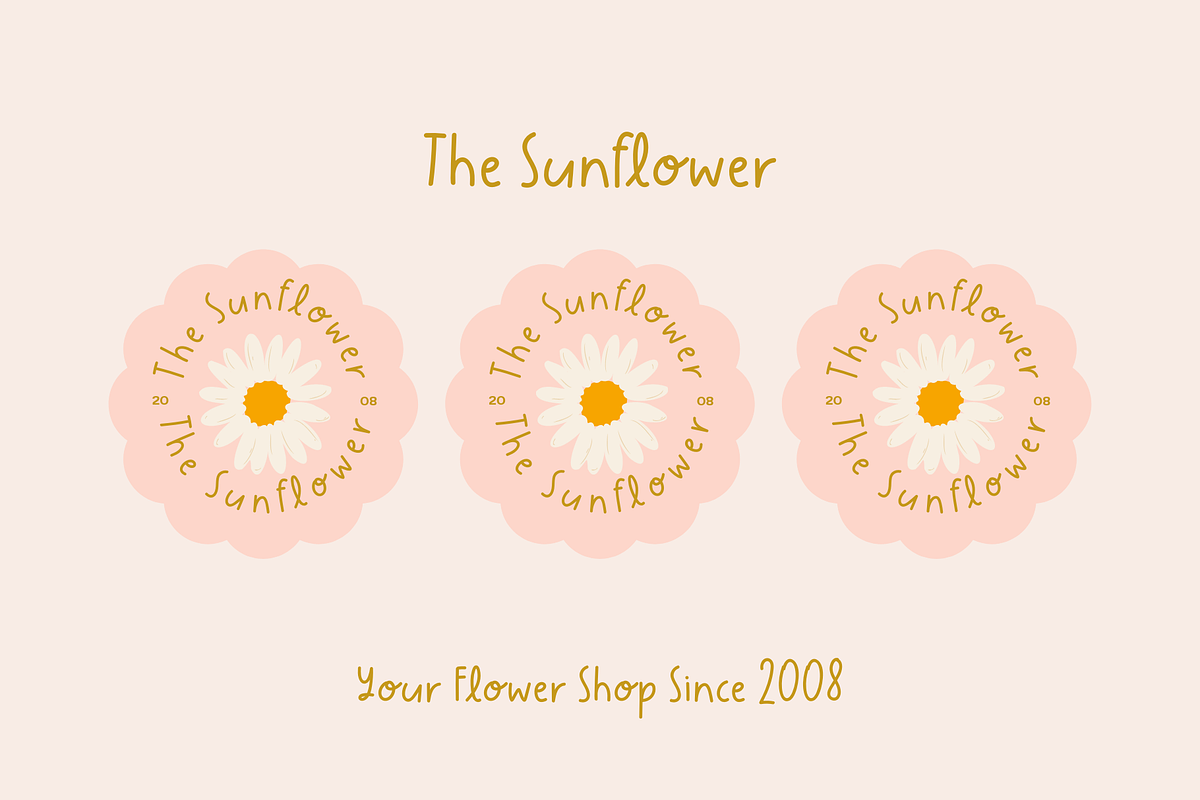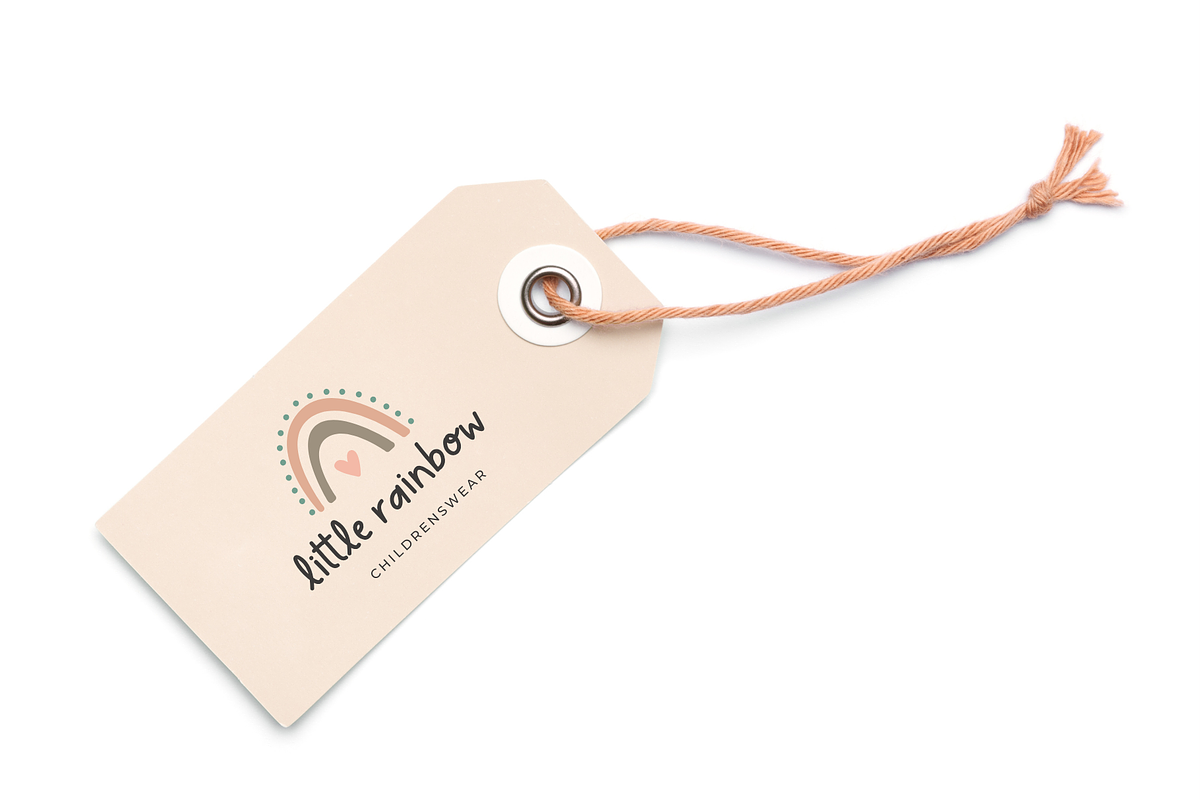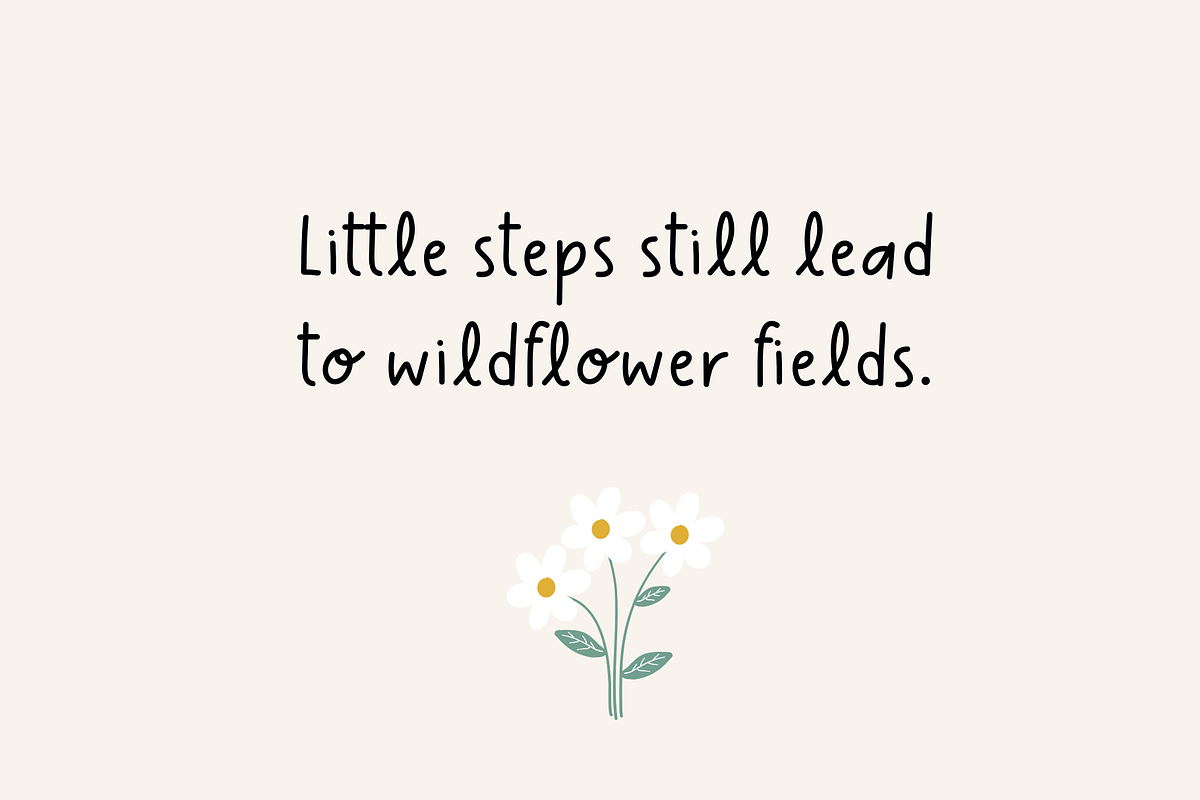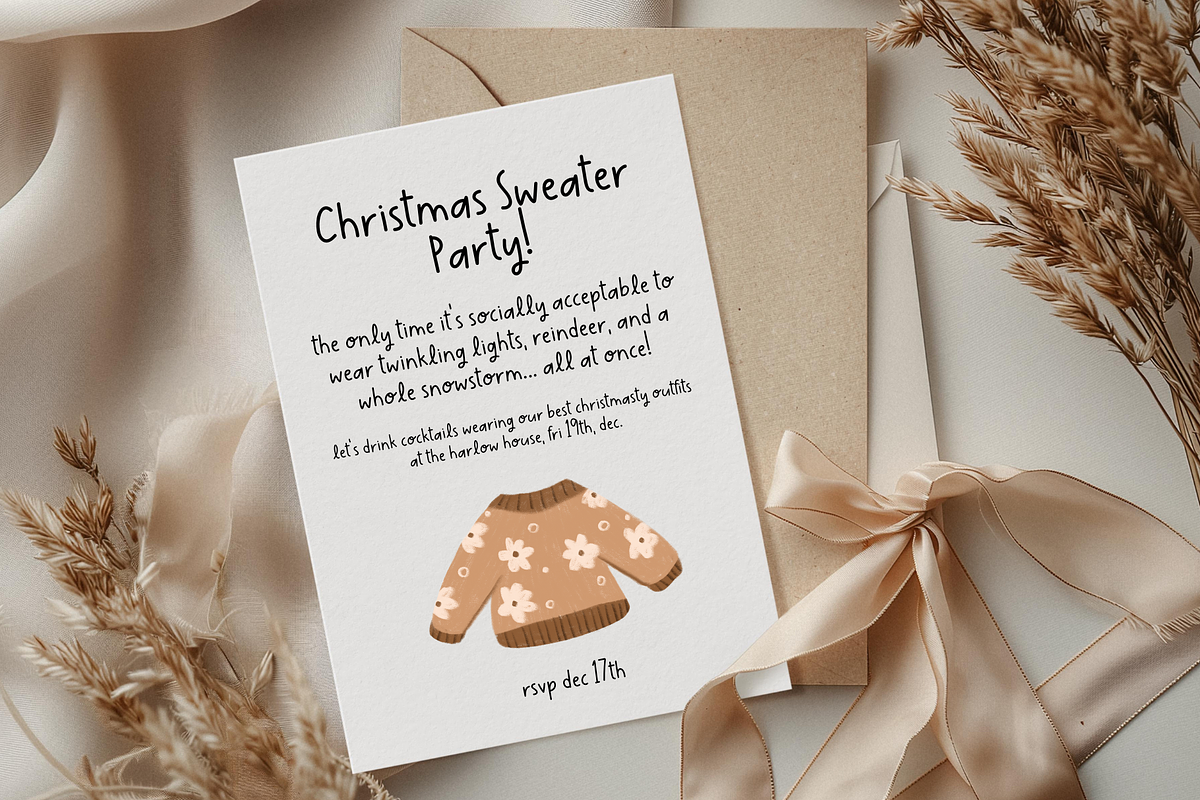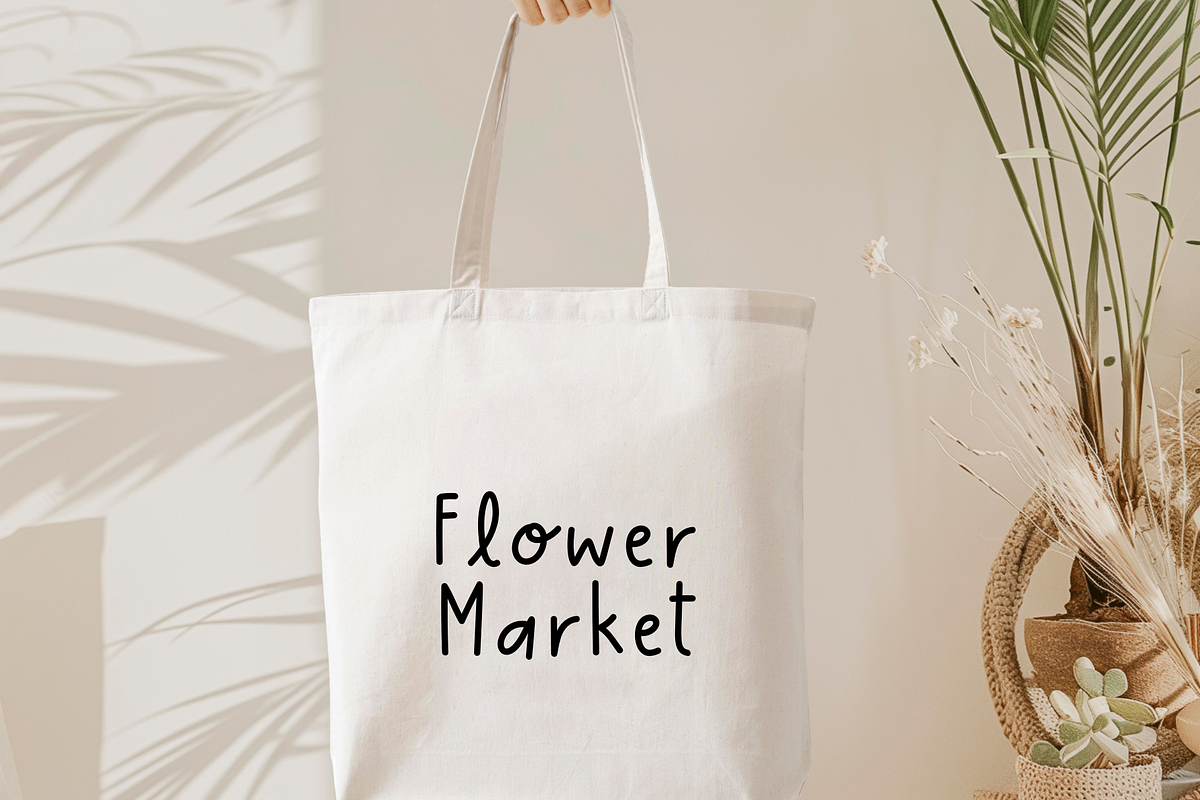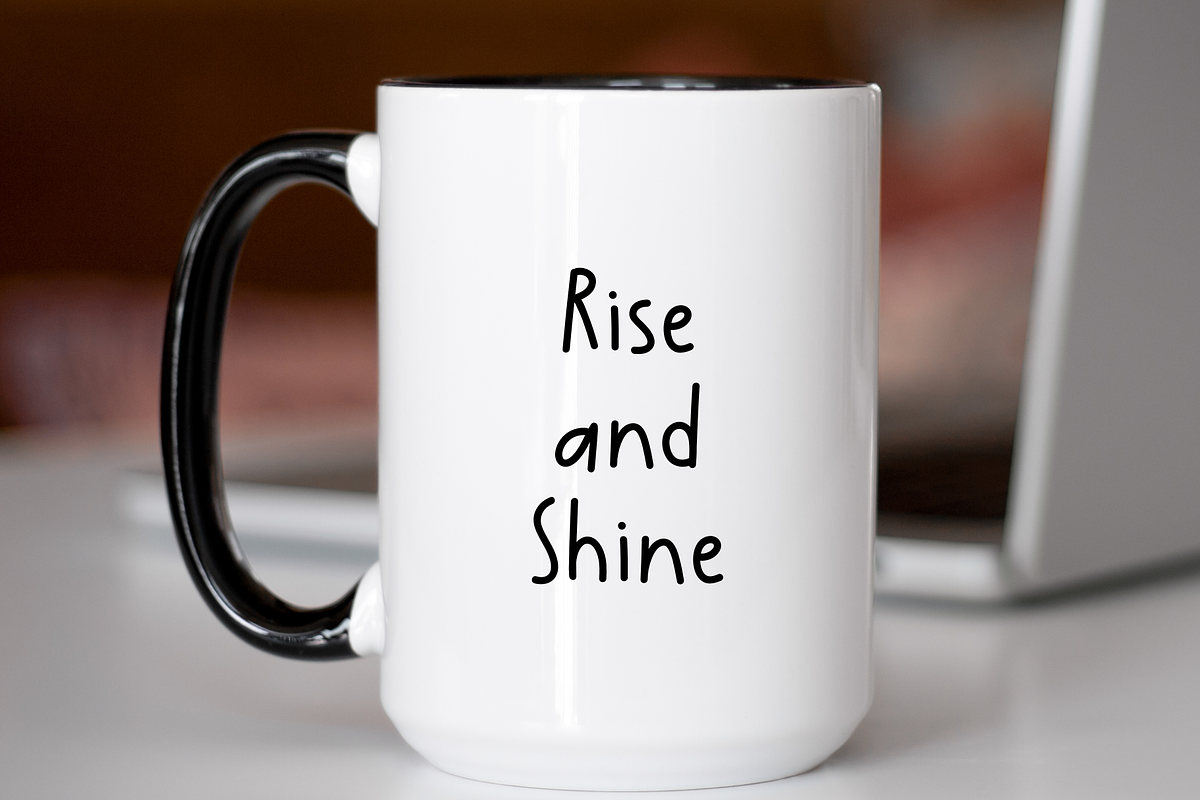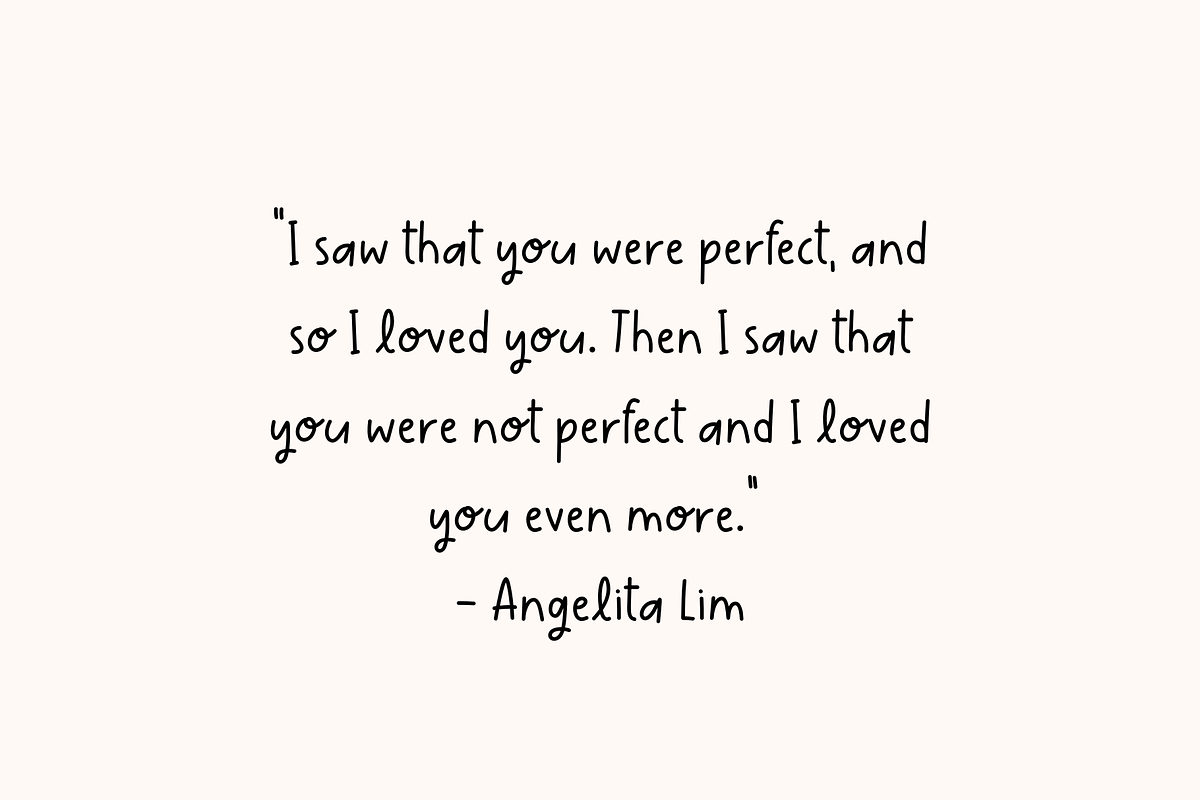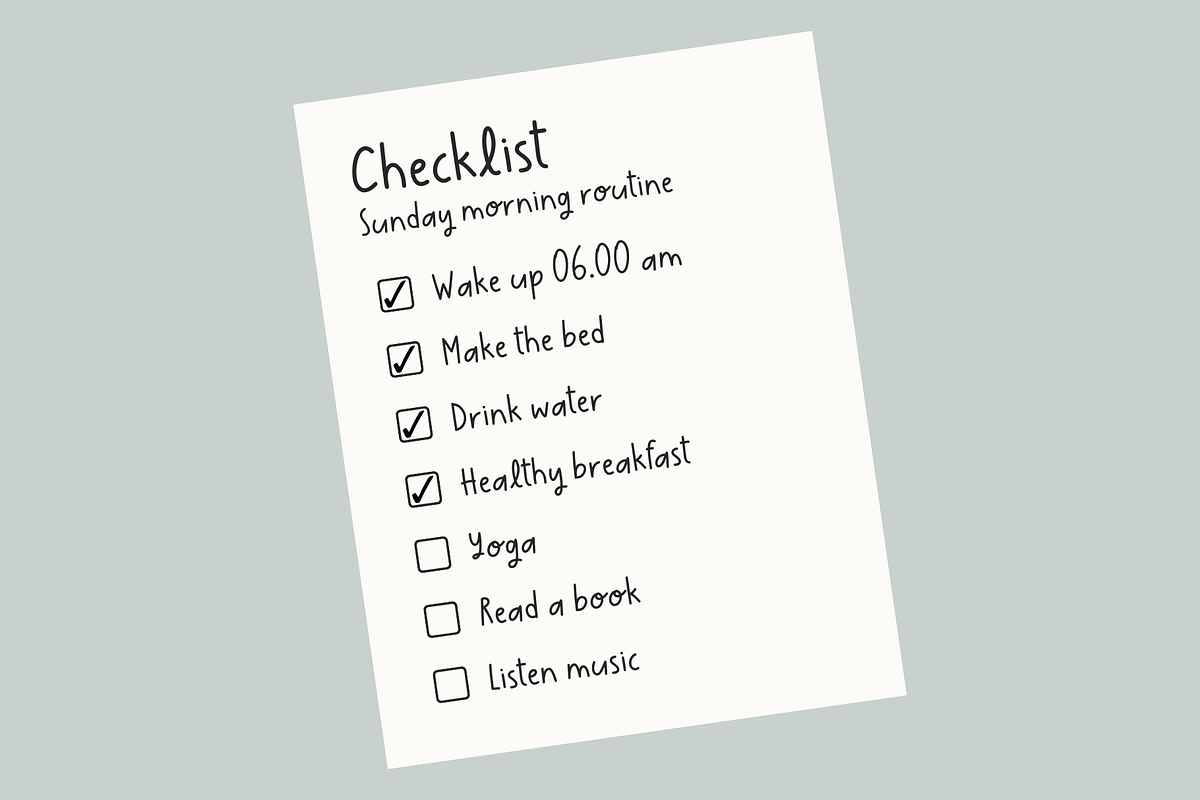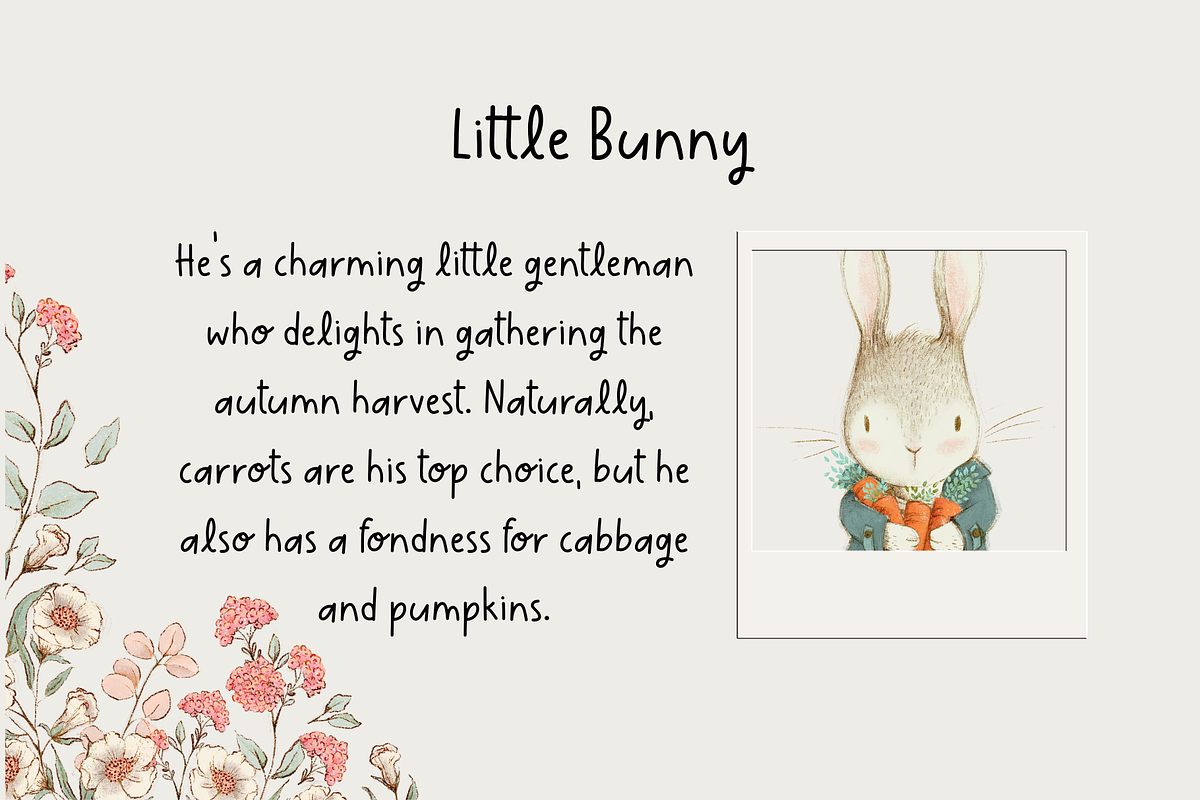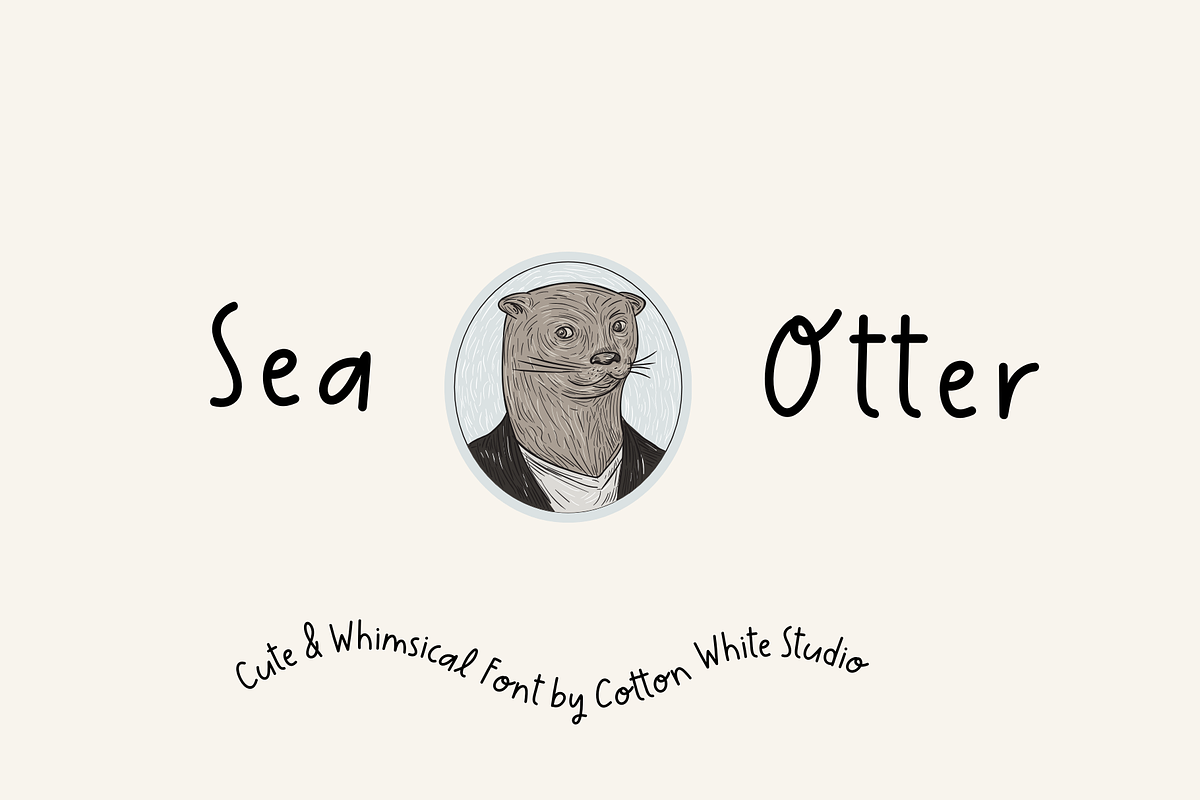
Sea Otter Cute Handwriting
Cute font perfect for adding a handwritten touch to your digital planner, journal, invitations, notes, or any creative project that calls for a bit of charm. Use it effortlessly in Cricut, Adobe Illustrator, Photoshop, Canva Pro, Silhouette, Procreate, Affinity, Notability, GoodNotes, and more!